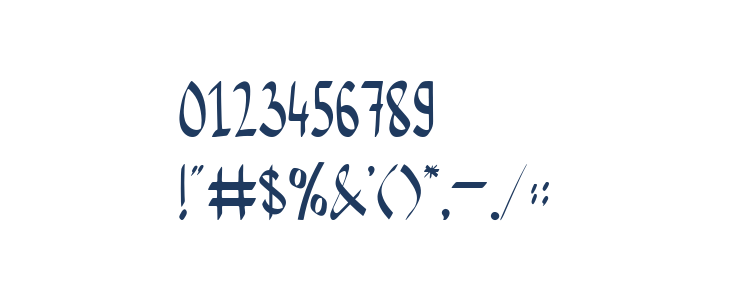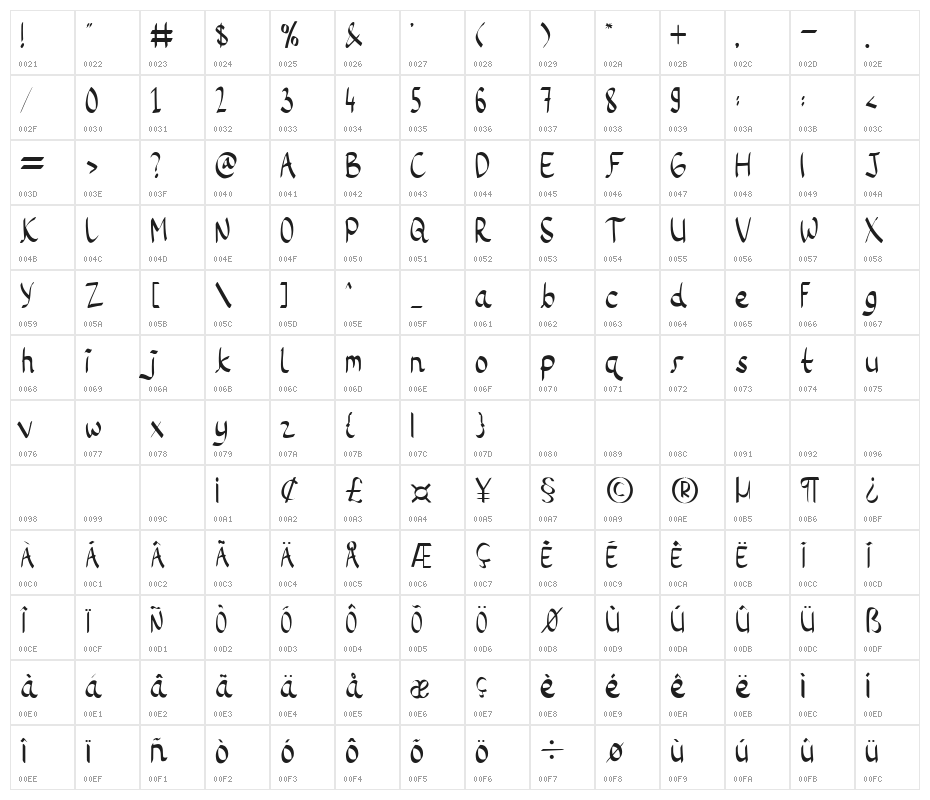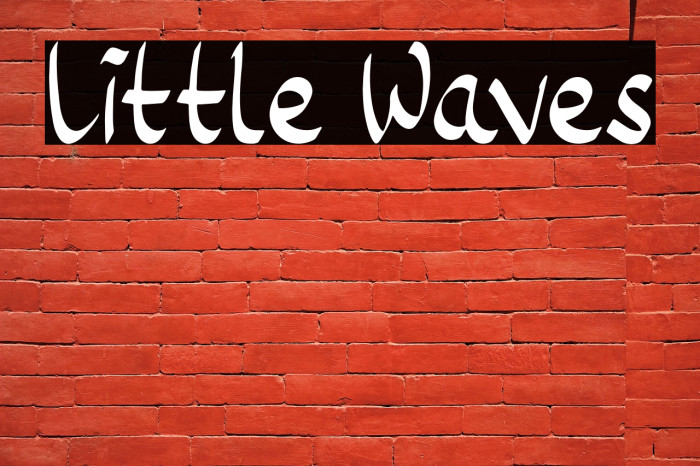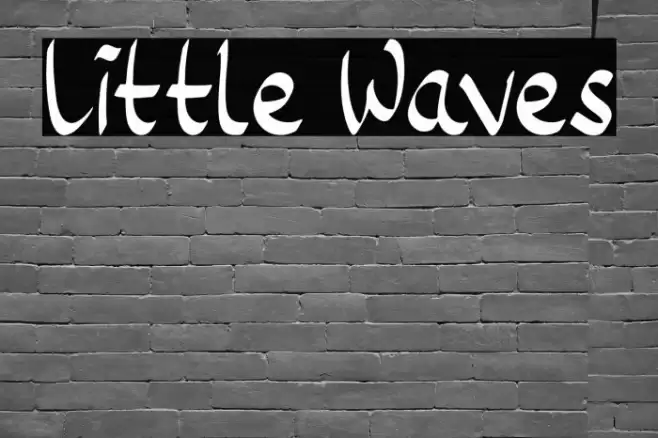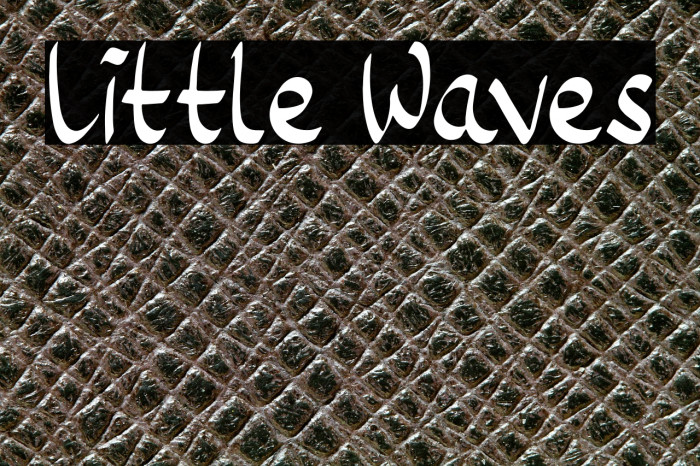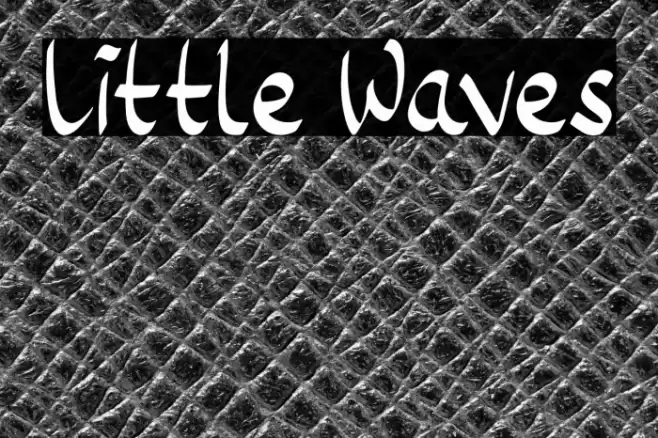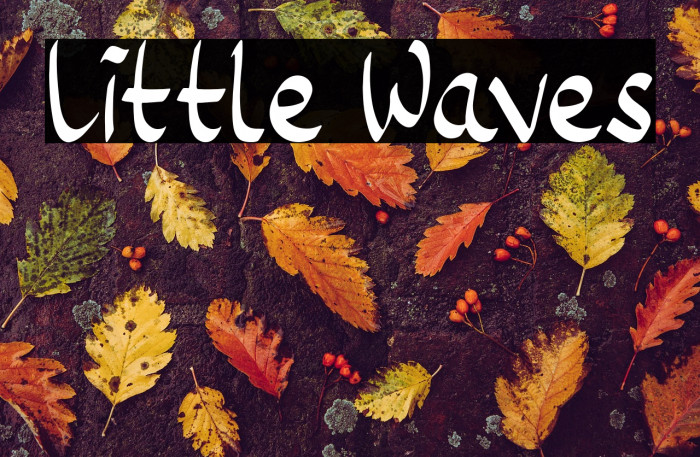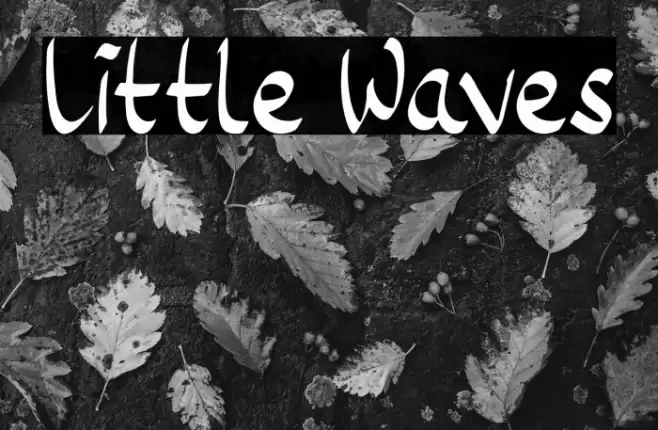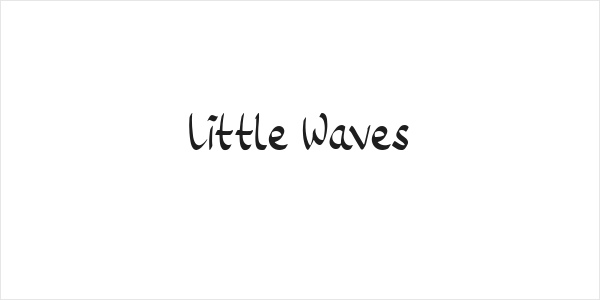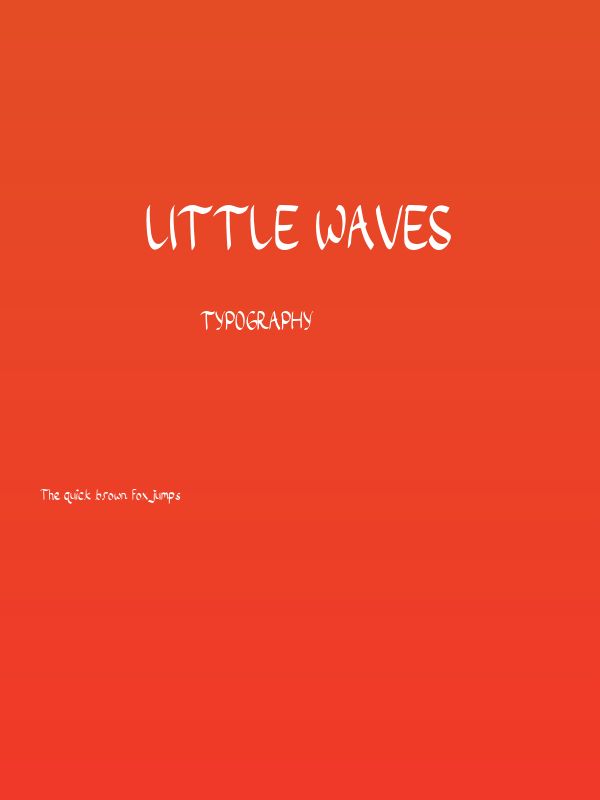
Little Waves Font
Little Waves Description
This font features a playful and dynamic style, characterized by its wavy and irregular strokes that give it a hand-drawn appearance. The uppercase letters are bold and slightly tilted, adding a sense of movement and energy. The lowercase letters maintain a consistent flow, with some letters like 'g' and 'j' having distinctive tails that enhance the whimsical feel. Numbers are clear and legible, matching the overall aesthetic with their rounded and slightly uneven forms. Special characters are creatively integrated, maintaining the font's lively and informal vibe. This font is ideal for projects that require a fun and approachable look.